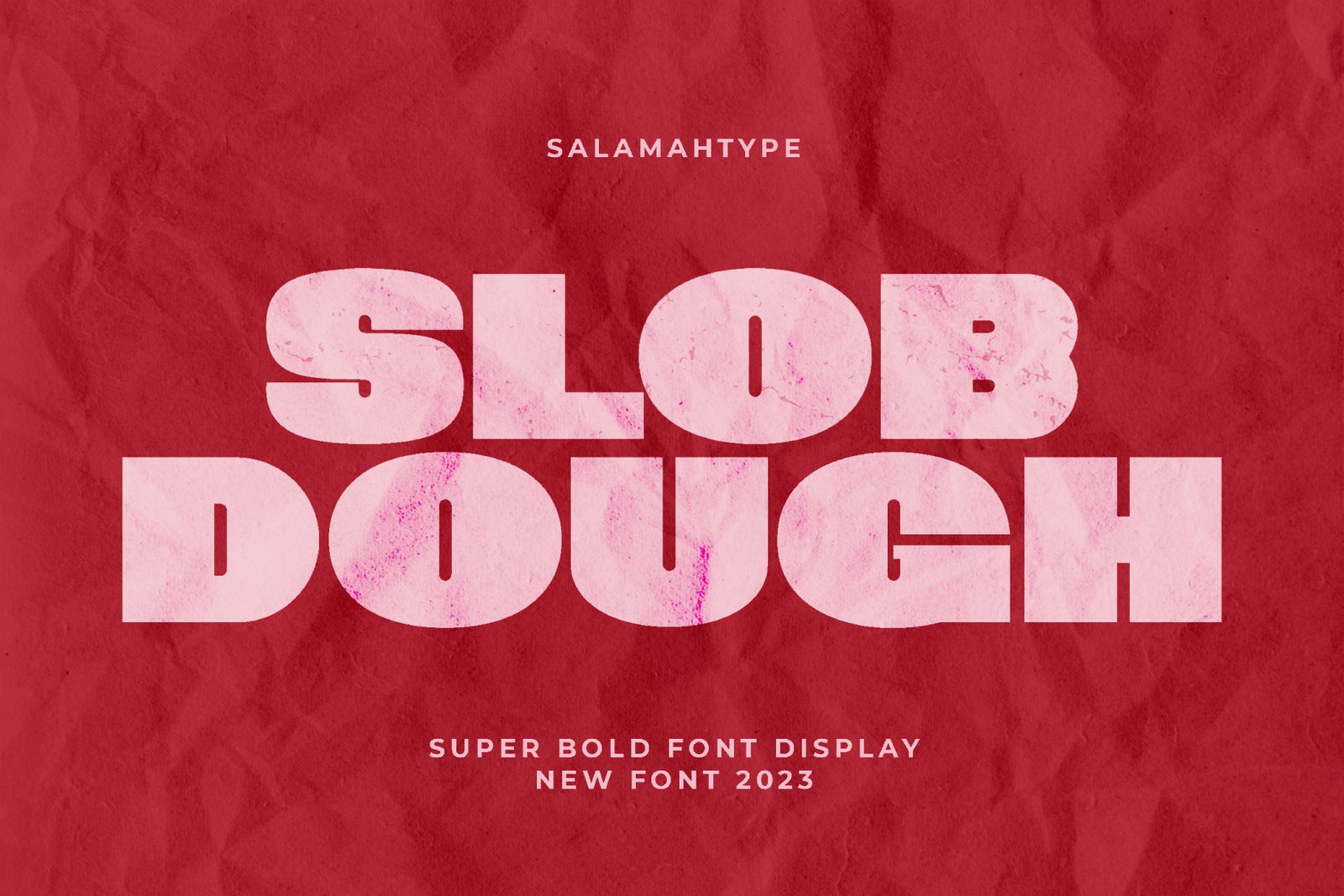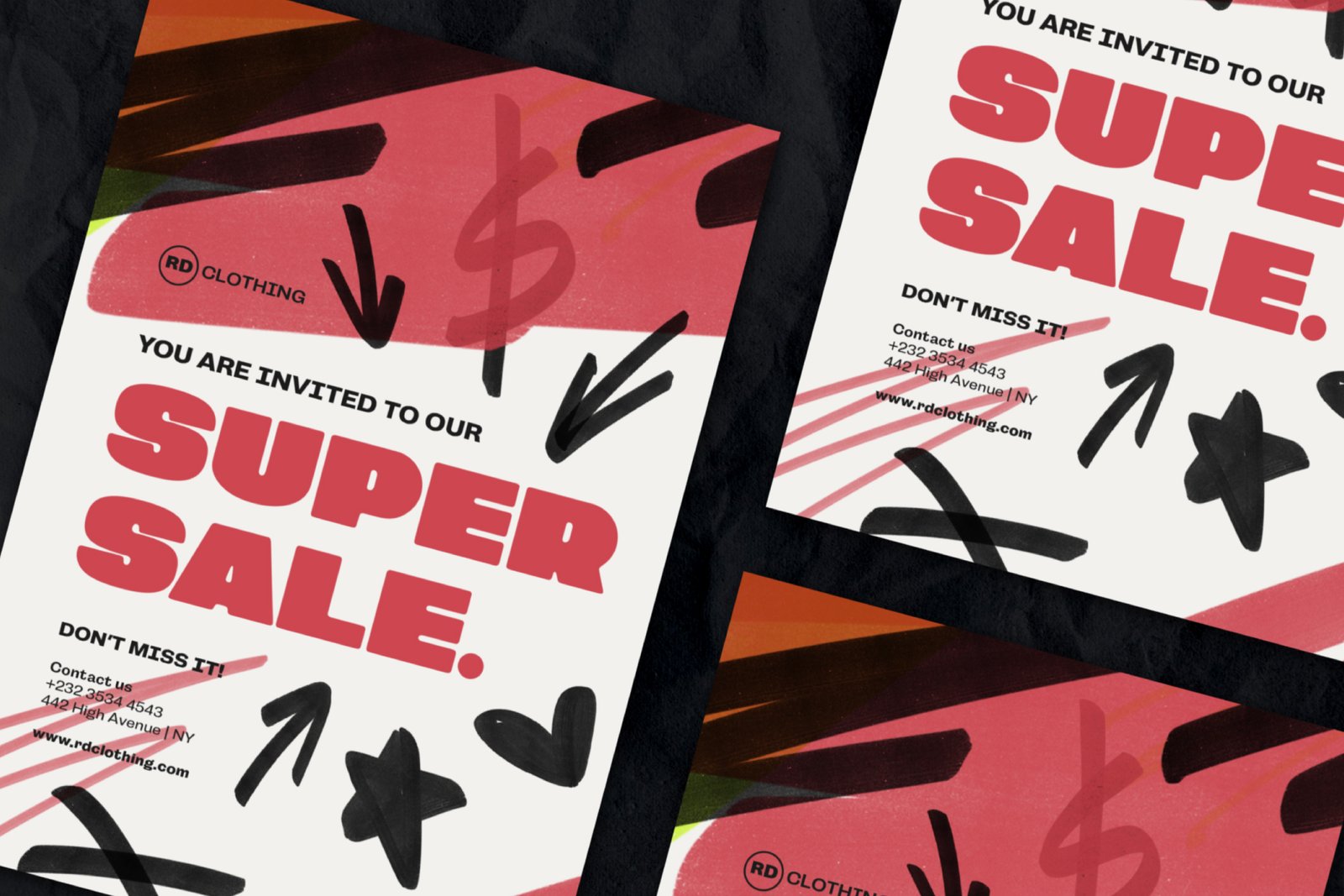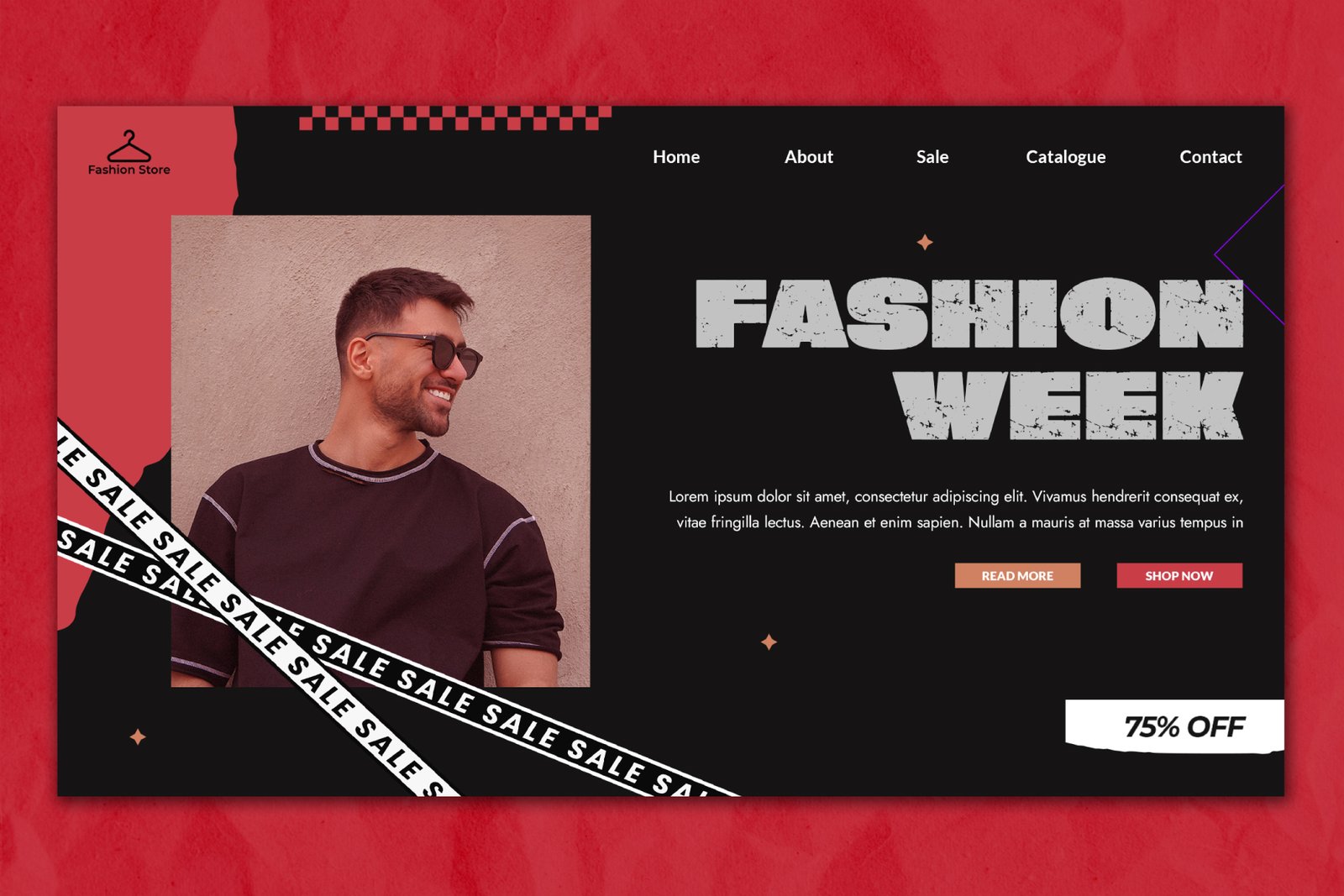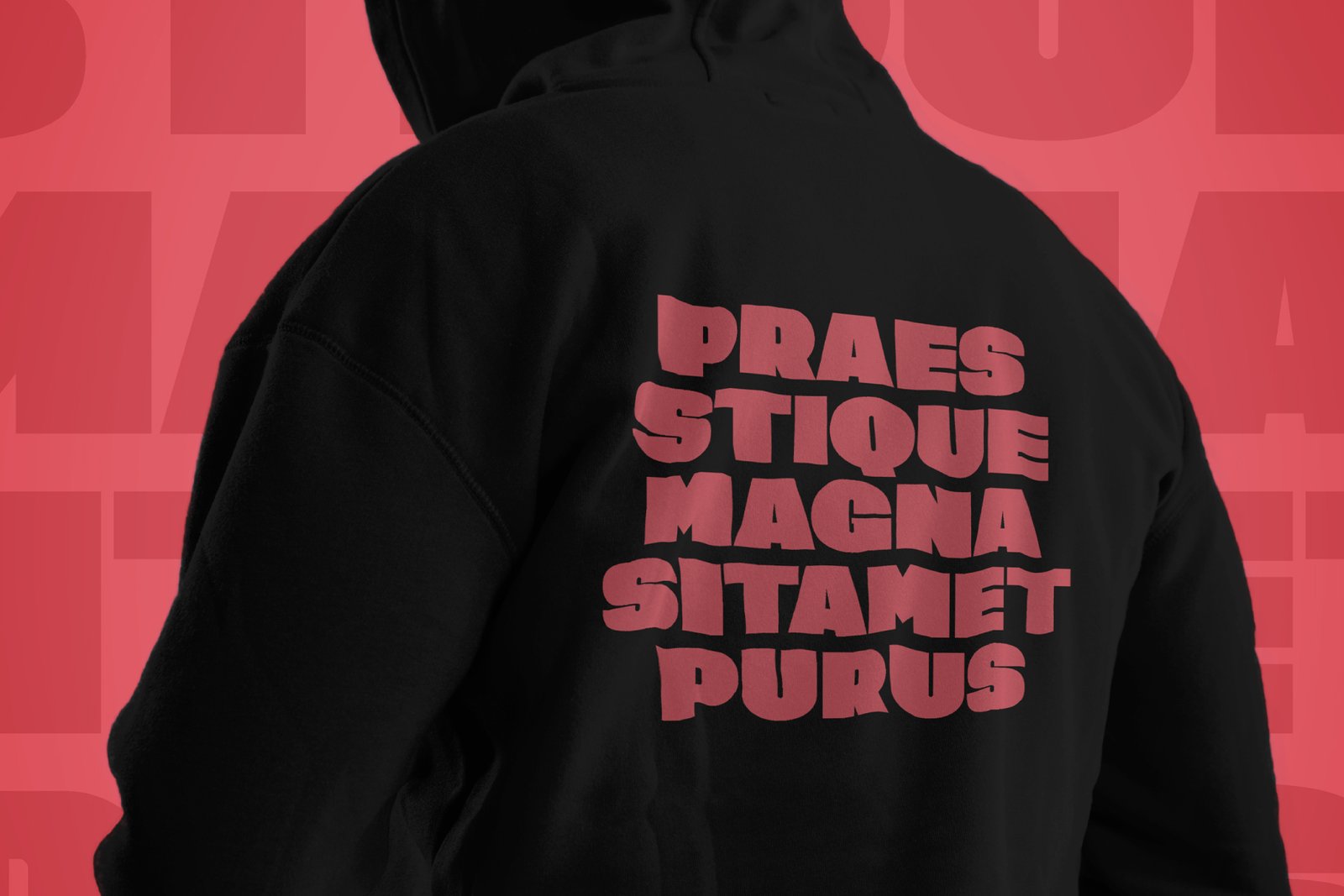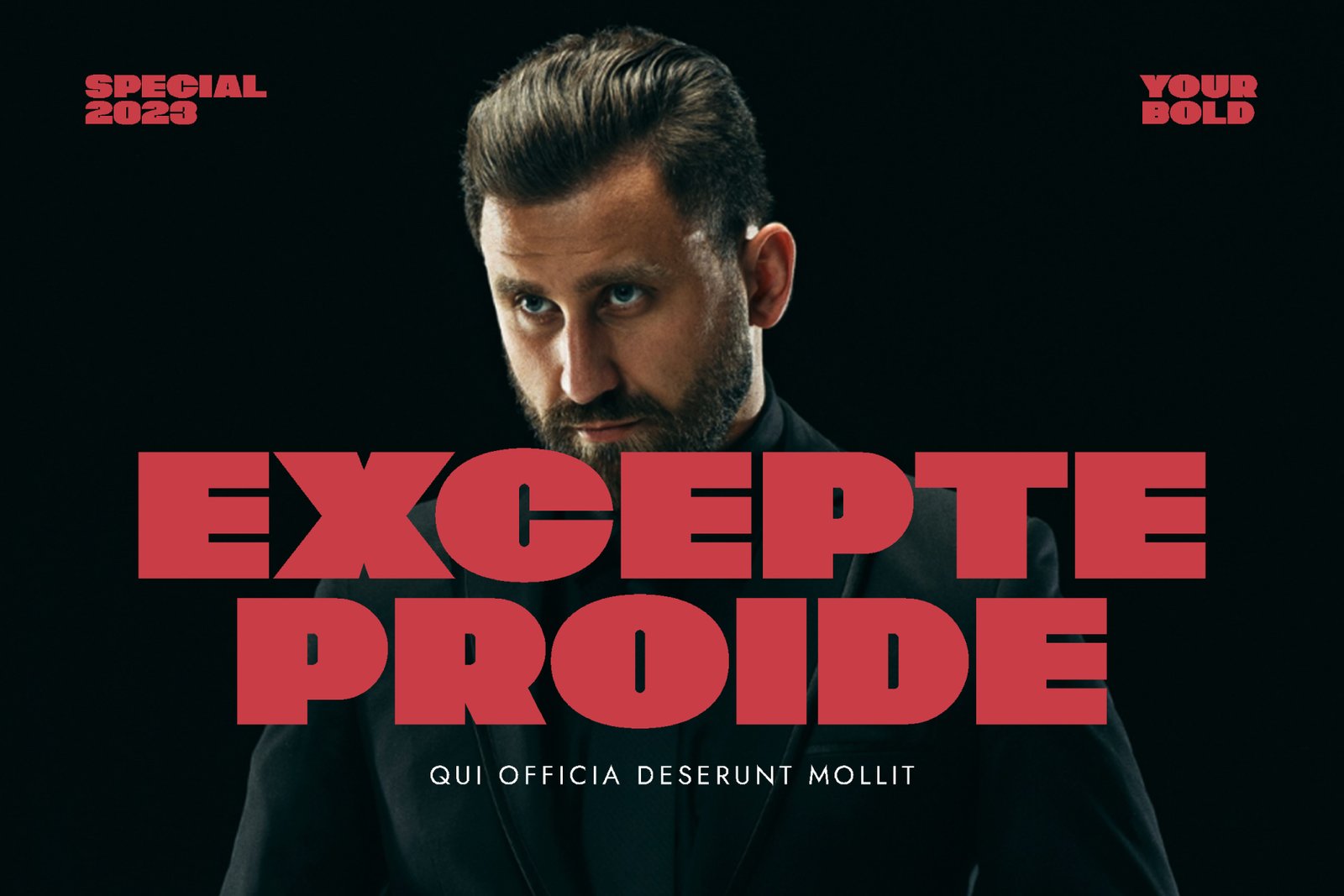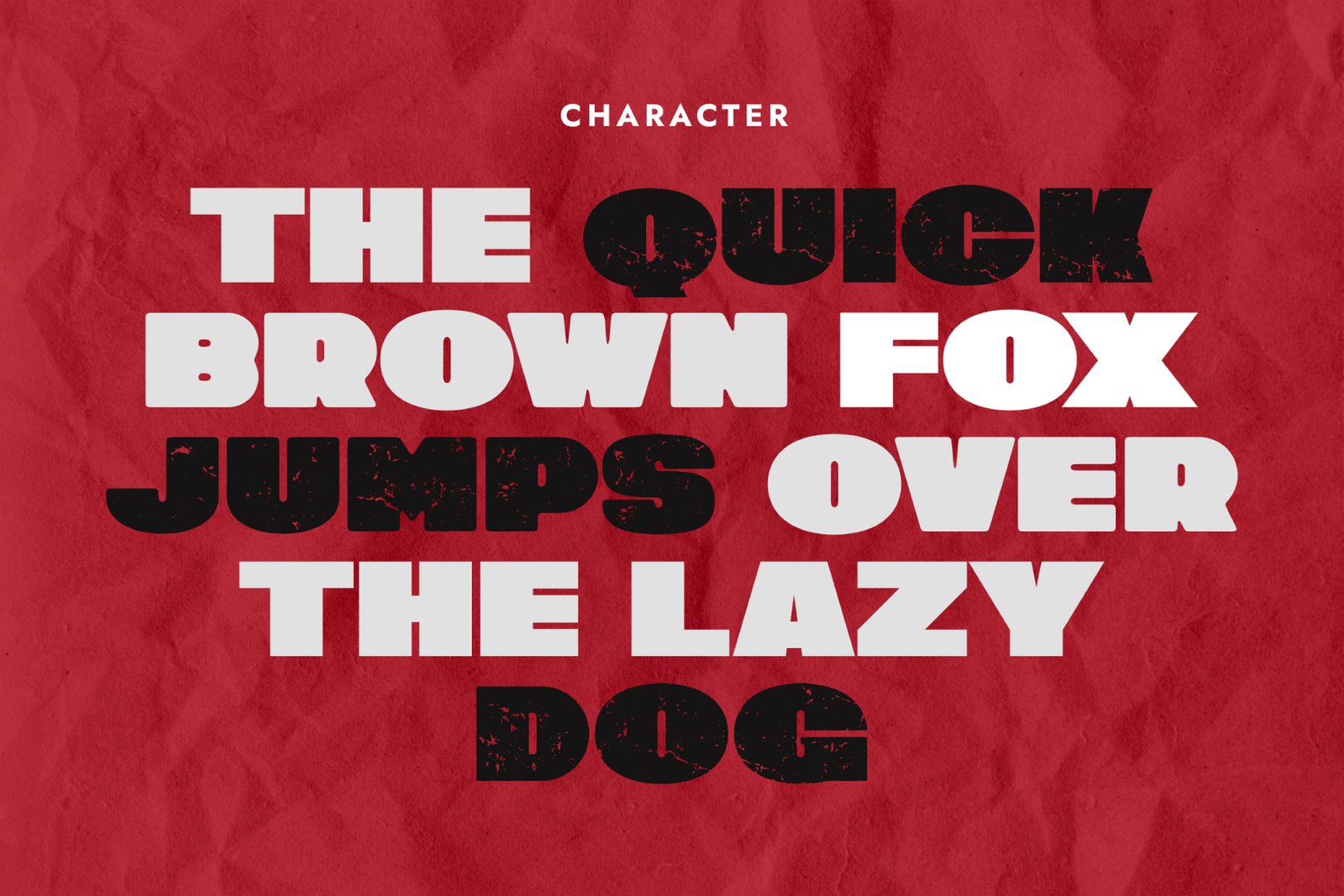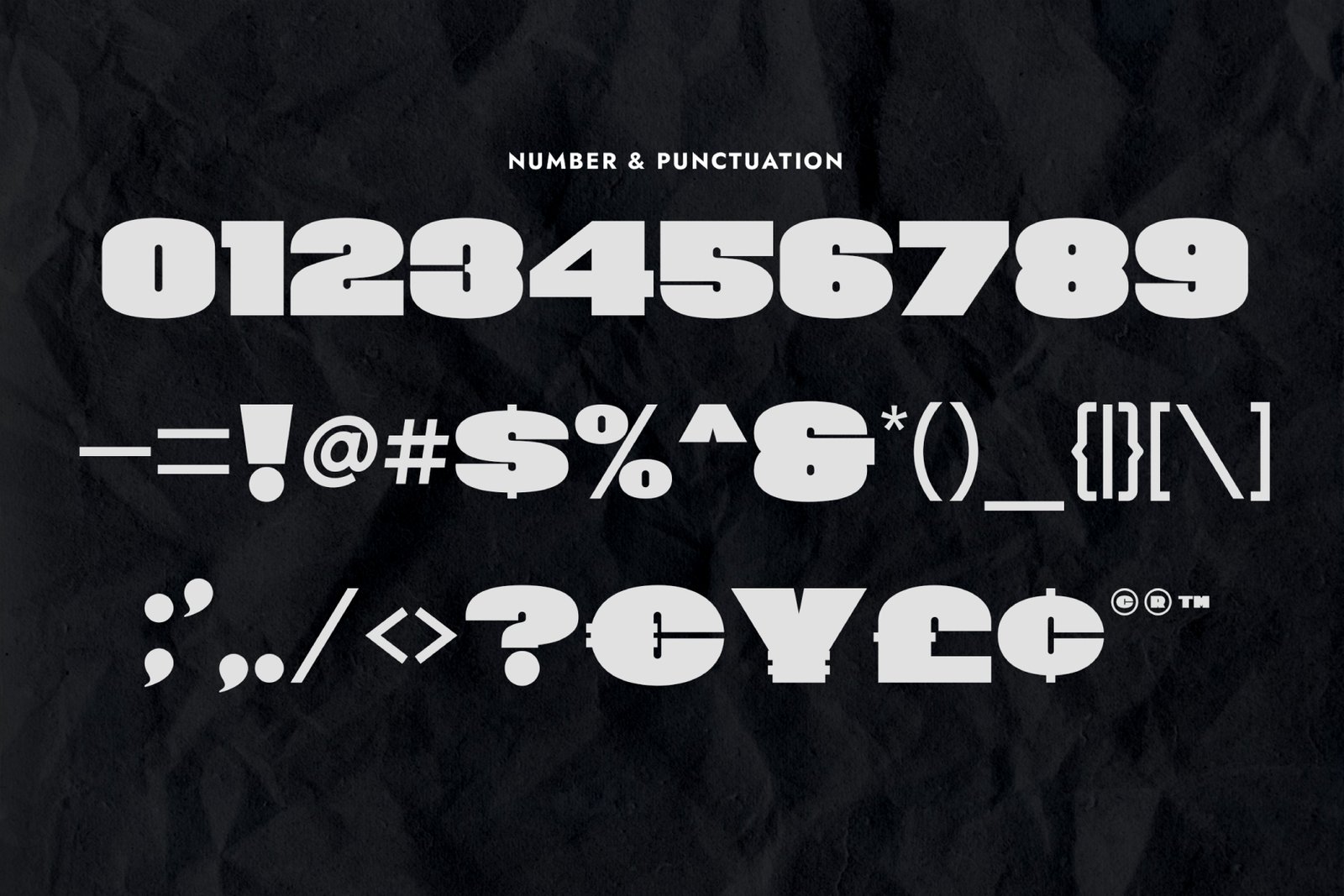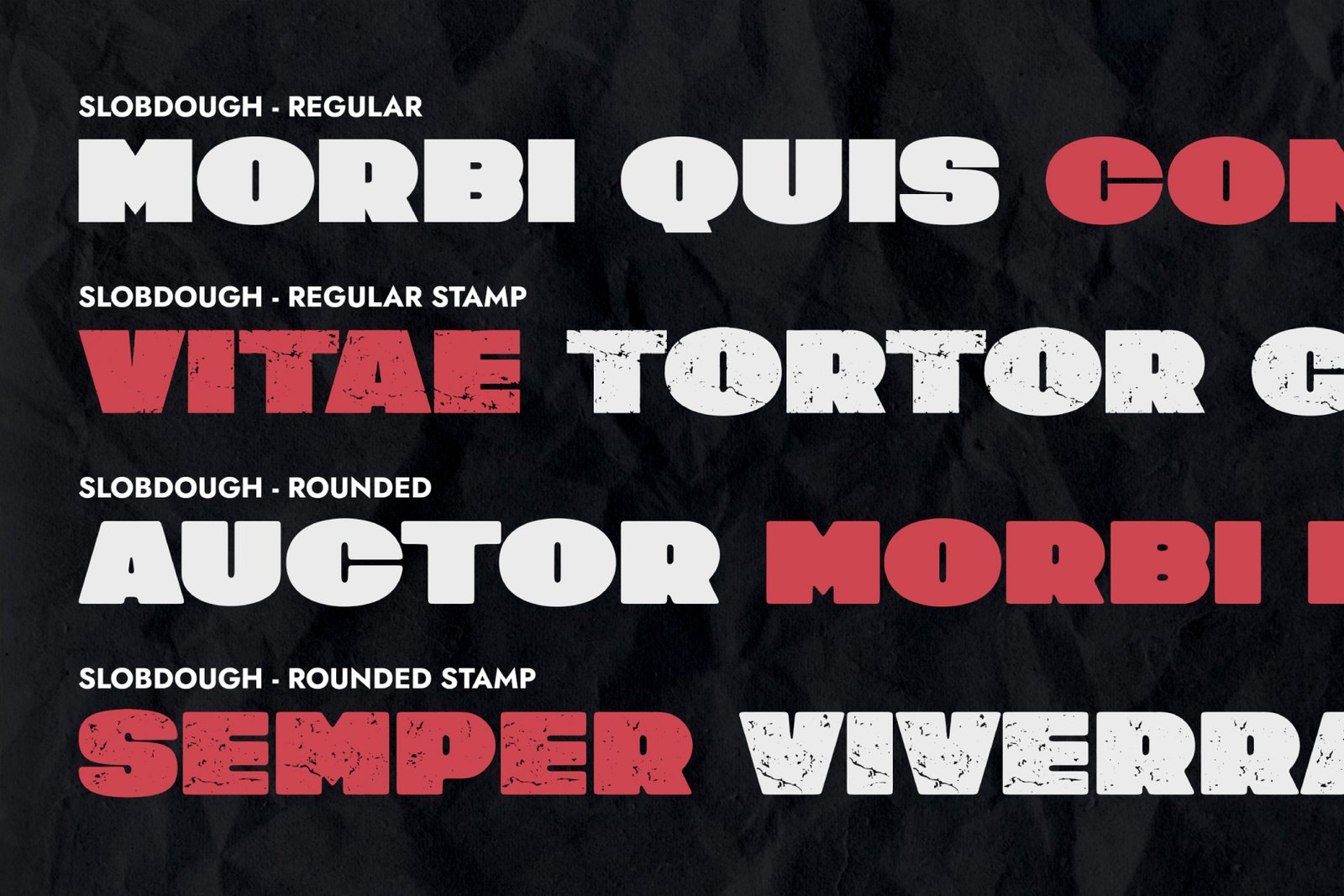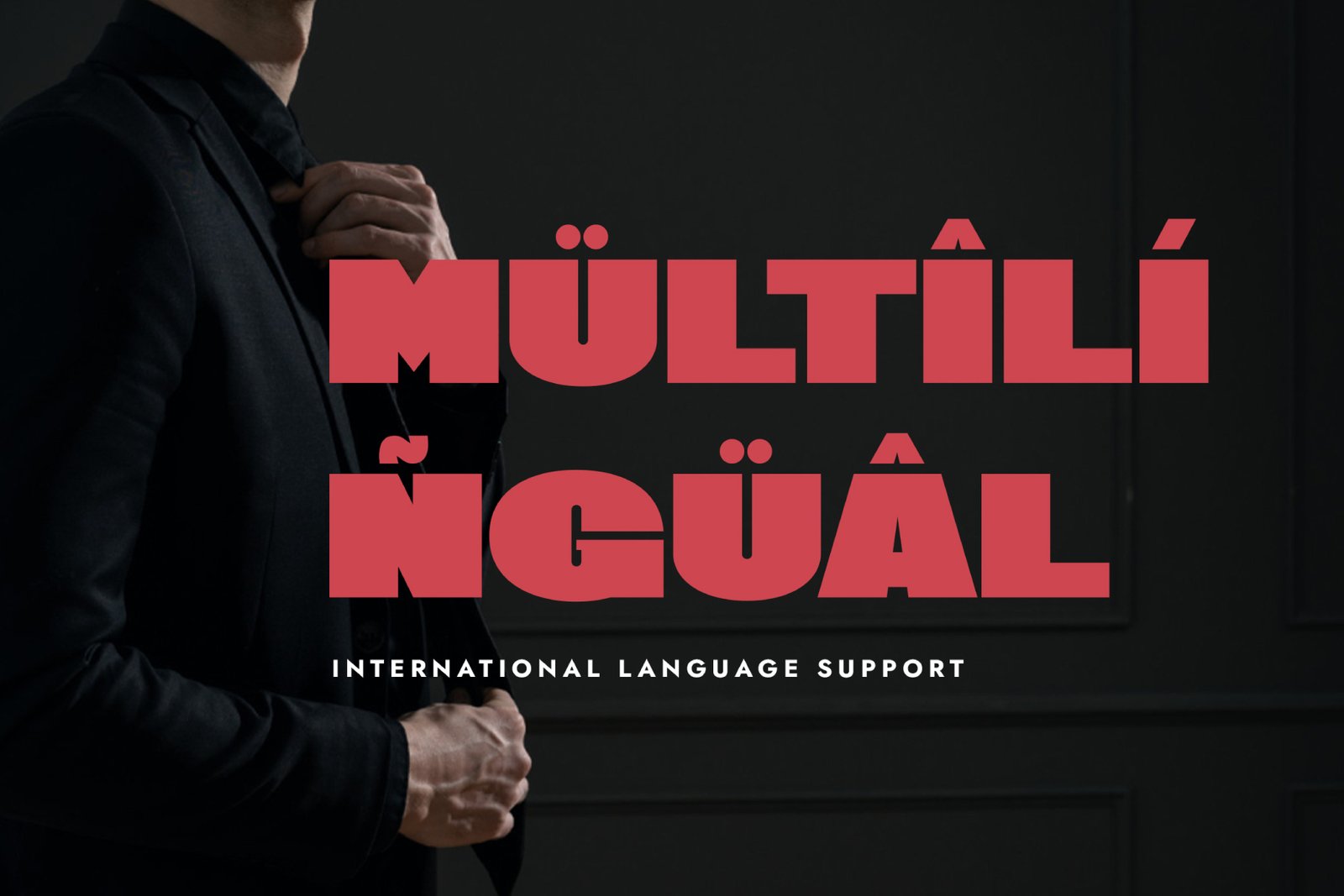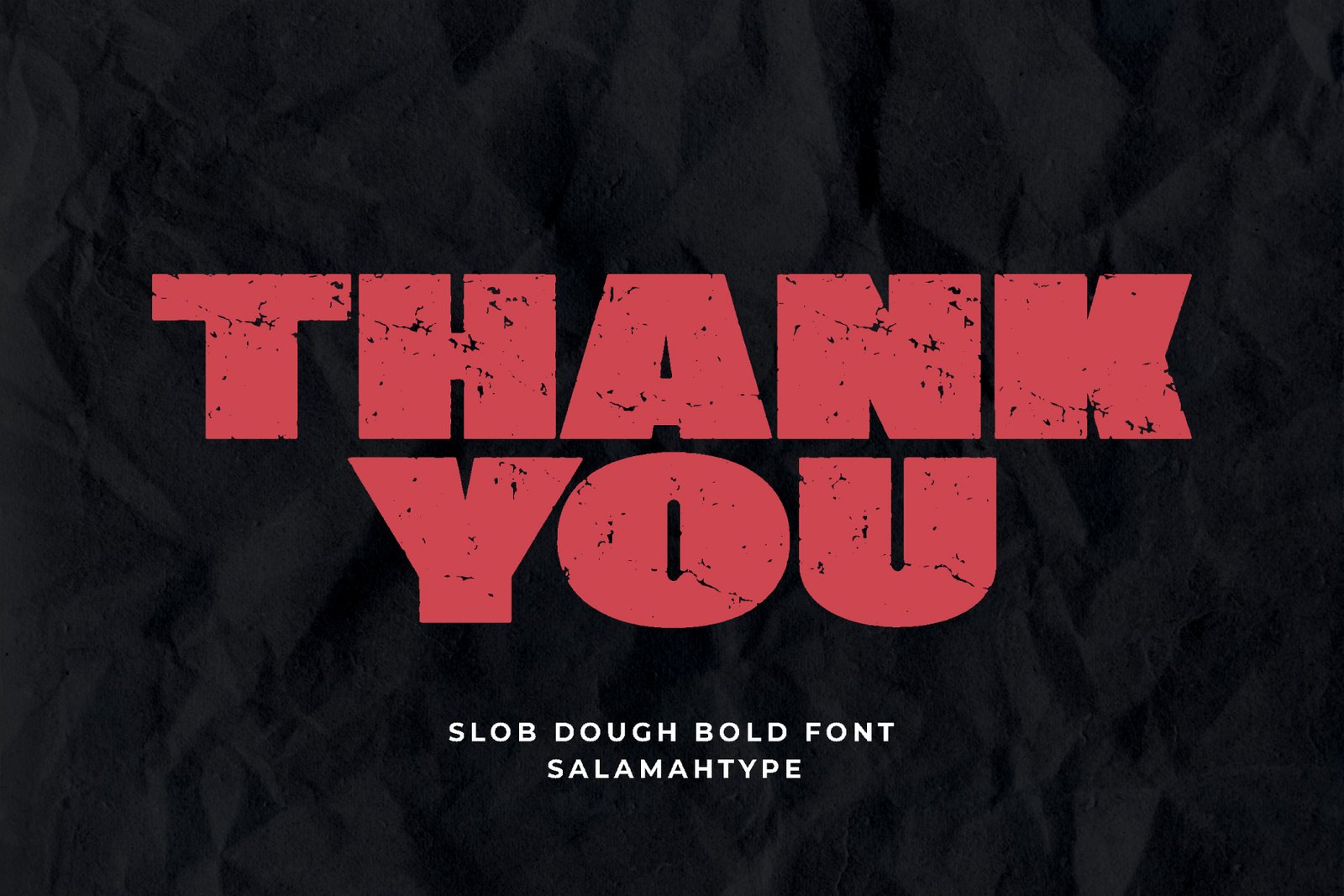
- Slob Dough – Bold Font
Introducing “SLOT DOUGH” is a super bold typeface that is very suitable for use with various print and digital media, with its thickness capable of attracting attention when used as a headline or logo.
SLOB DOUGH also comes with a textured version which is your choice for project design needs that are classic or vintage in style.
Features:
- Uppercase – All caps
- Rounded & textured version
- Symbol and punctuation
- Multilingual support